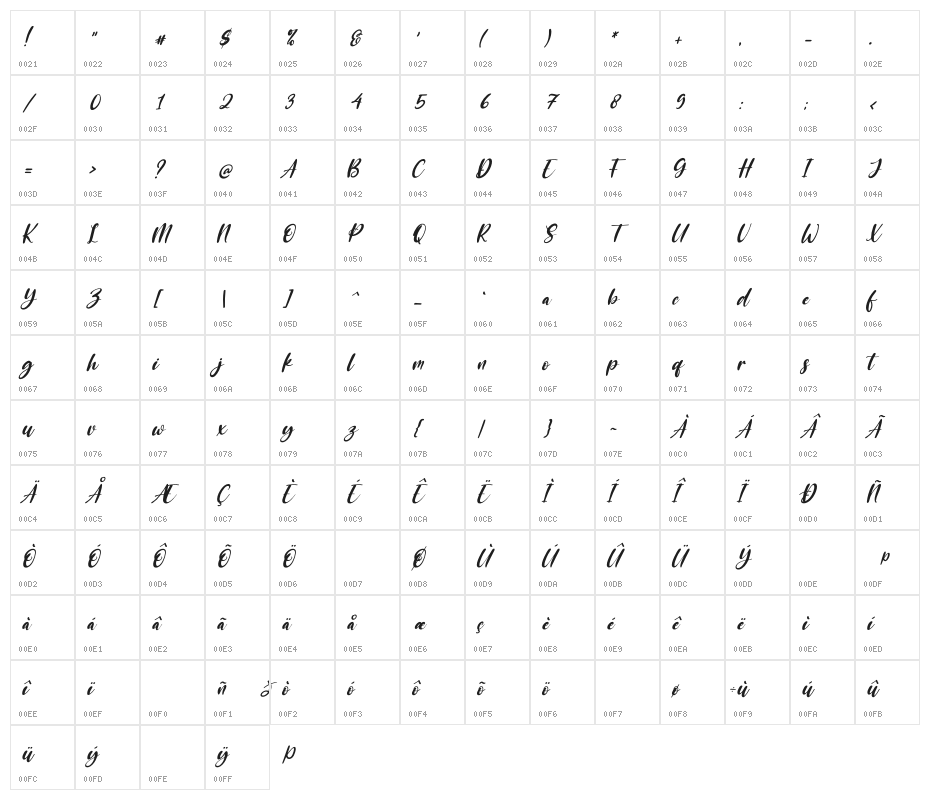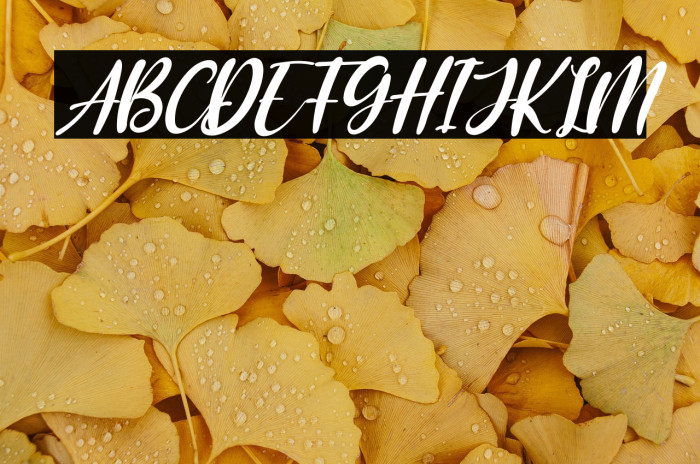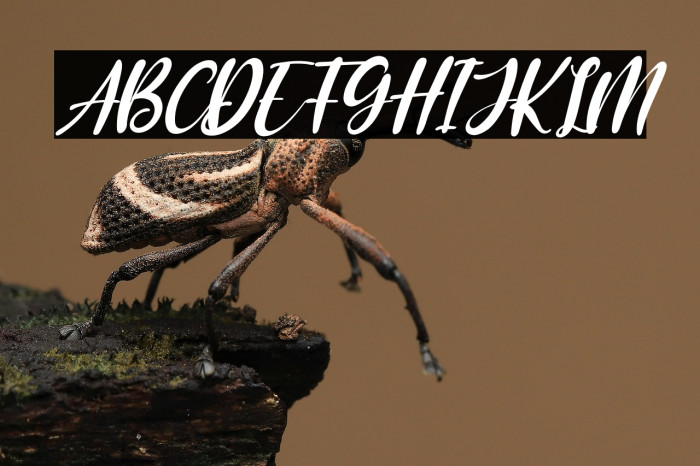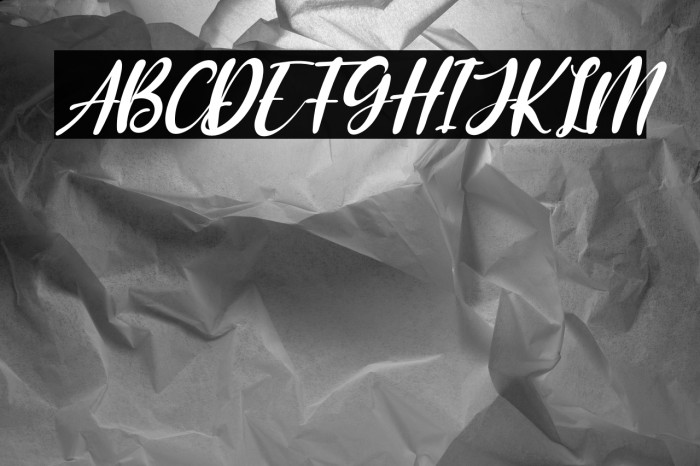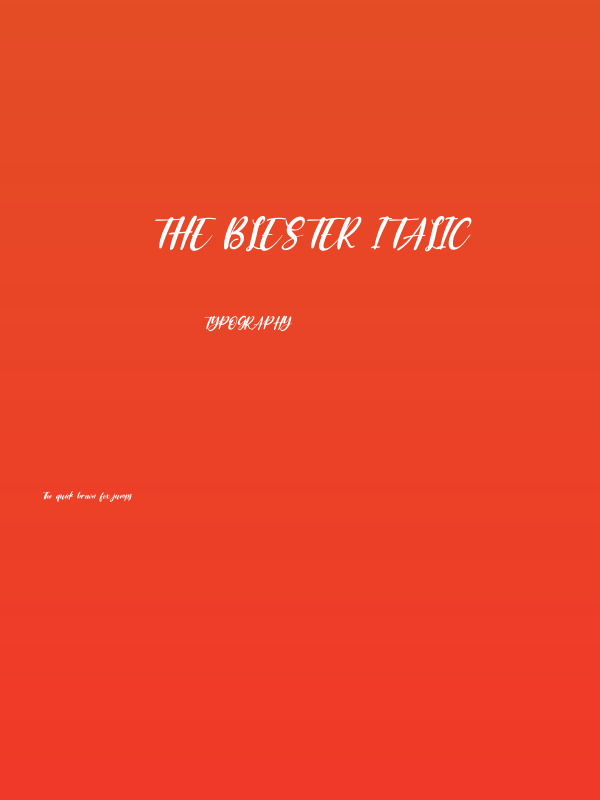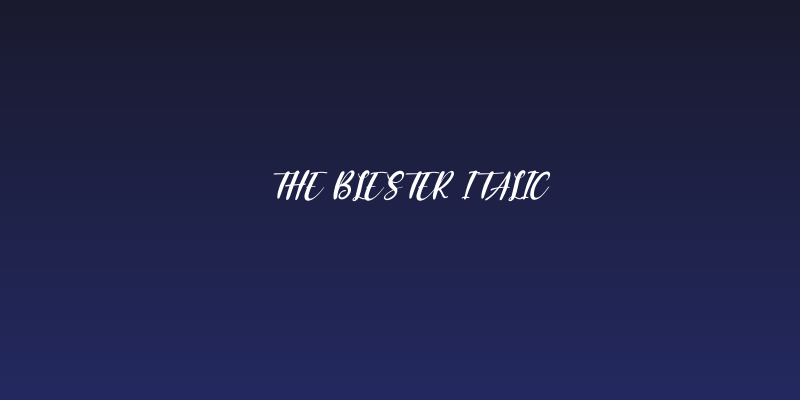
The Blester Italic Font
The Blester Italic Description
This font features a dynamic and flowing script style, characterized by its elegant and cursive letterforms. The letters are interconnected, giving a sense of continuity and fluidity. The strokes are bold and expressive, with varying thickness that adds a lively and energetic feel. The uppercase letters are tall and graceful, while the lowercase letters maintain a consistent rhythm. The numerals and special characters are designed to complement the overall style, maintaining the same fluidity and boldness. This font is well-suited for creative and artistic projects where a touch of elegance and personality is desired.